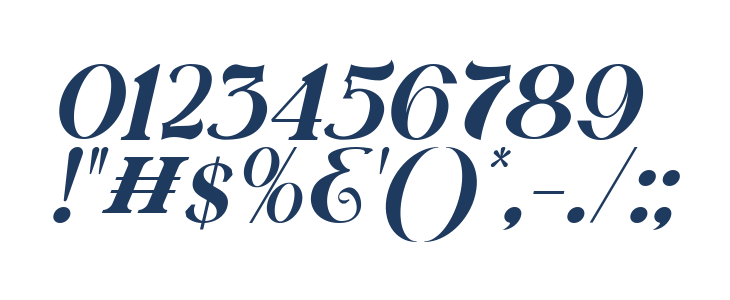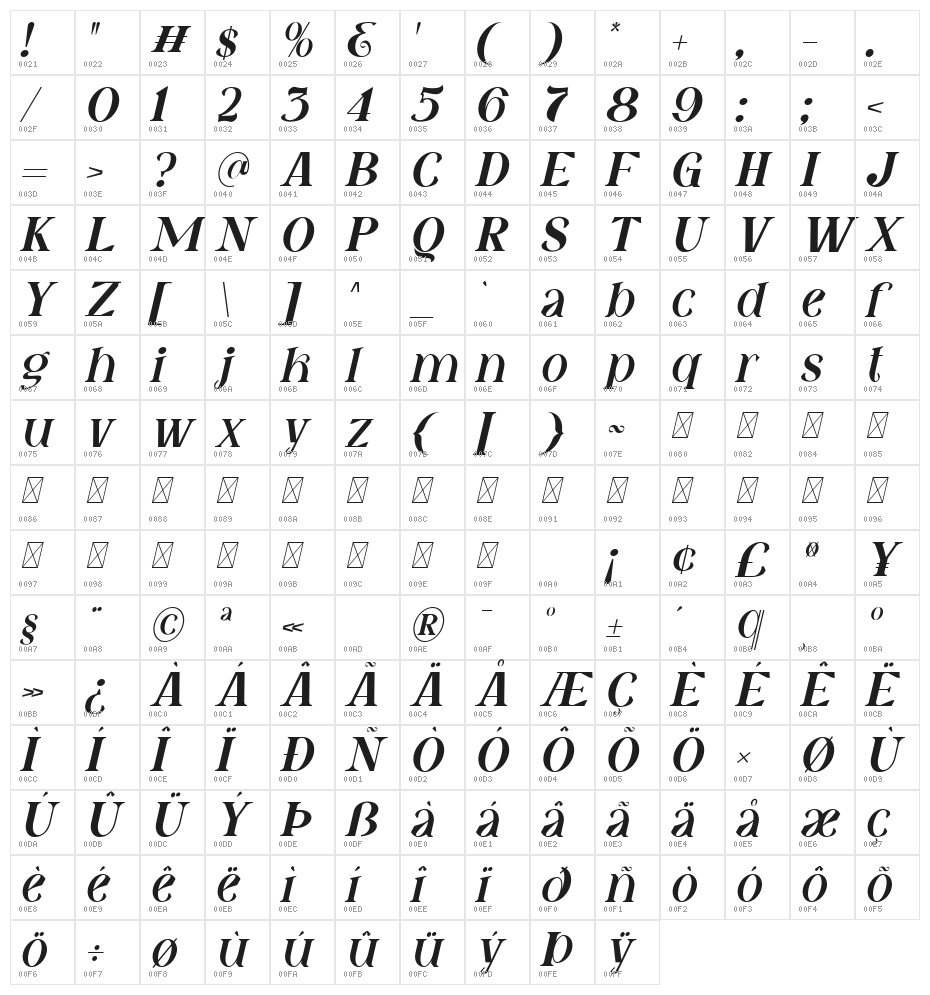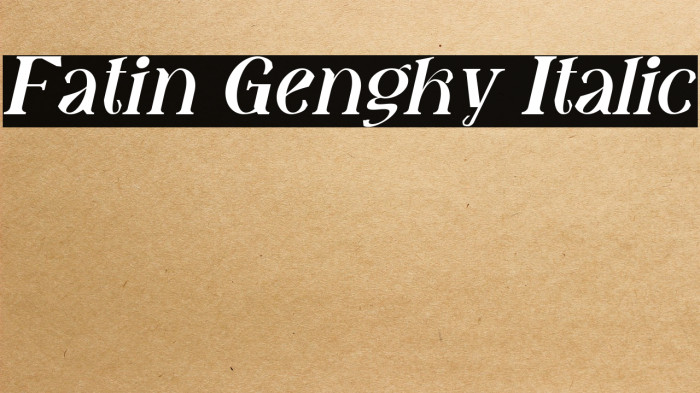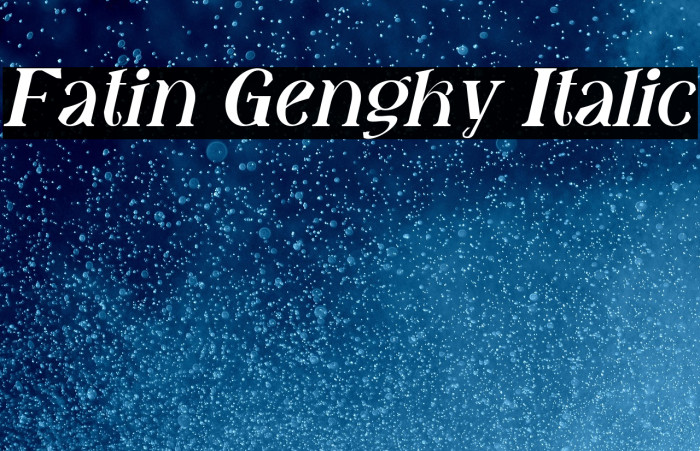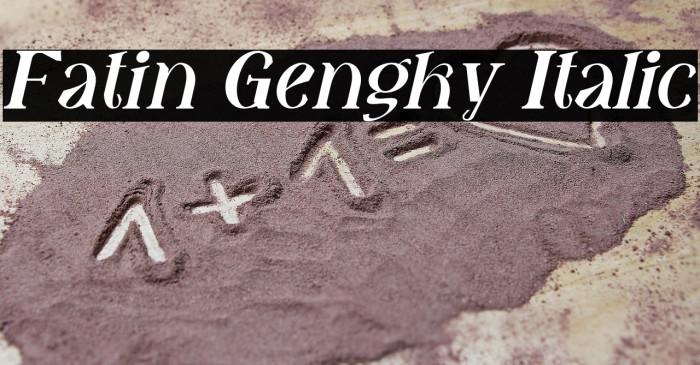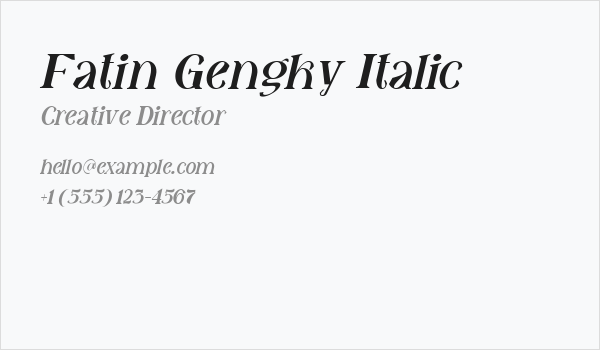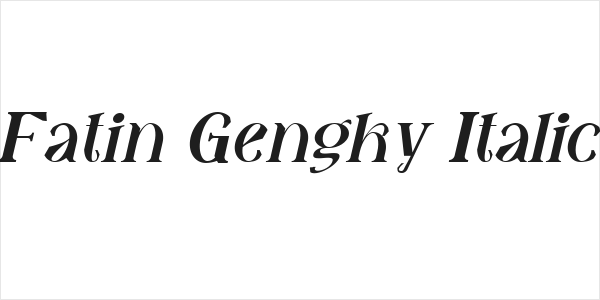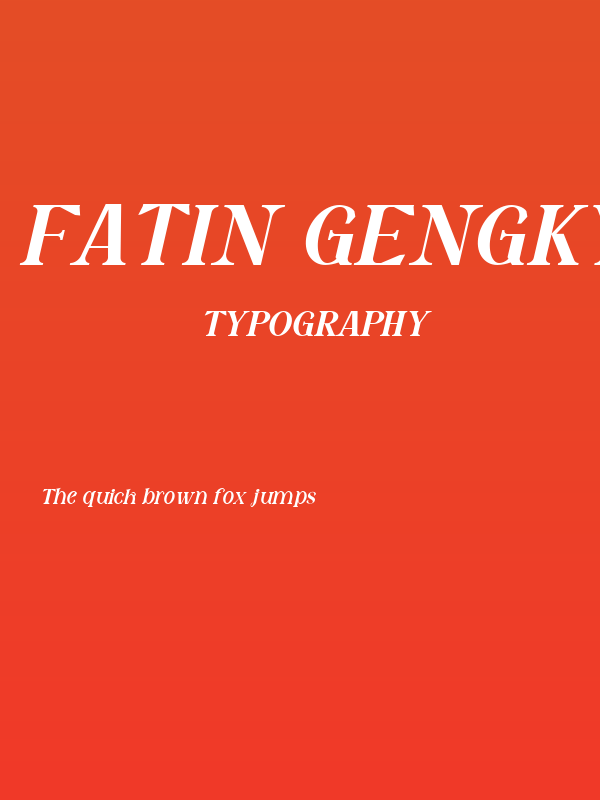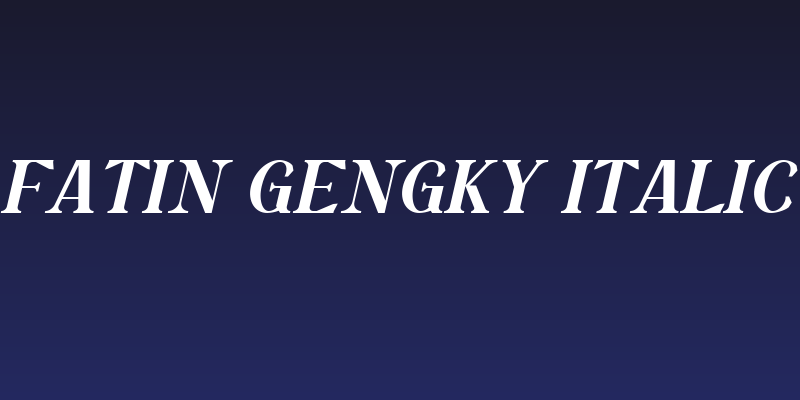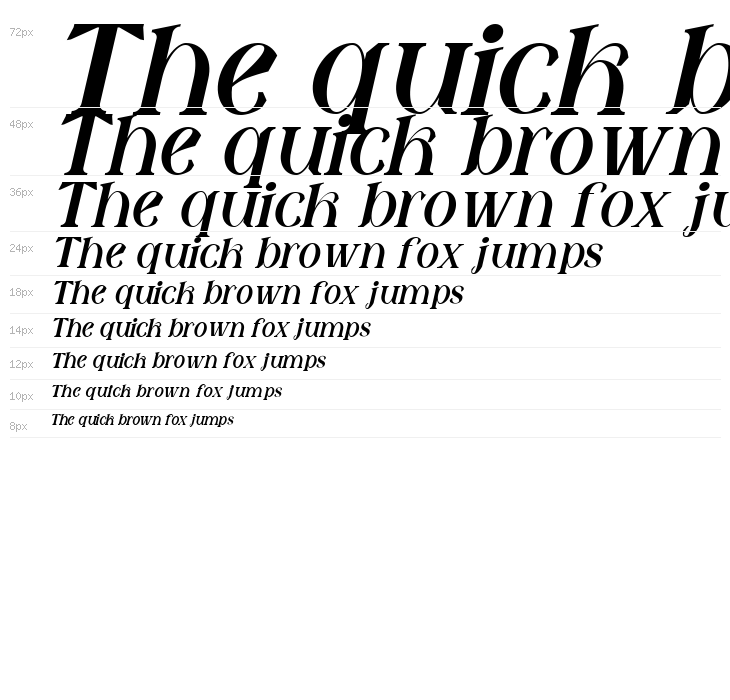
Fatin Gengky Italic Font
Fatin Gengky Italic Description
This elegant typeface features a classic italic style with a sophisticated flair. The characters exhibit a smooth, flowing design with a slight slant, enhancing readability while maintaining a refined aesthetic. The uppercase letters are bold and commanding, while the lowercase letters are more delicate, providing a balanced contrast. The numerals are distinct and clear, matching the overall style of the alphabet. Special characters are well-integrated, maintaining the font's cohesive look. This typeface is ideal for projects that require a touch of elegance and tradition, such as formal invitations, branding, and editorial design.
| Use Case | Headlines, Logos, Editorial design |
| Proposed Projects | Ideal for formal invitations, branding, editorial design, and luxury product packaging. |